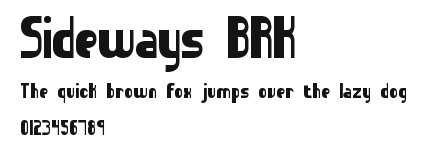
Sideways BRK Preview
• Font Name: Sideways BRK
• Full Font Name: Sideways BRK
About Sideways BRK.ttf
Sideways BRK.ttf is a modern, elegant sans-serif font designed for ultimate readability and visual harmony. Perfect for branding, headlines, web design, and print materials.